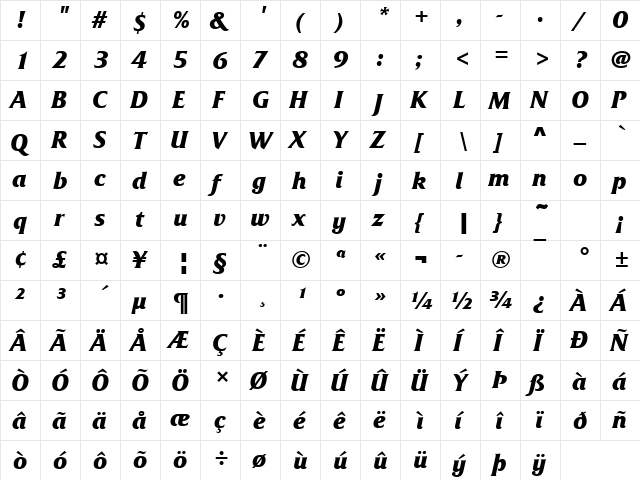
FrizQuaT Bold Italic Font Preview
Design Context for FrizQuaT Typeface
FrizQuaT offers clean, dependable letterforms without strong stylistic allegiance, making it a practical choice for designers who need flexibility. Its italic angle brings a sense of urgency and motion to the letterforms. The heavy weight commands attention and anchors typographic hierarchies.